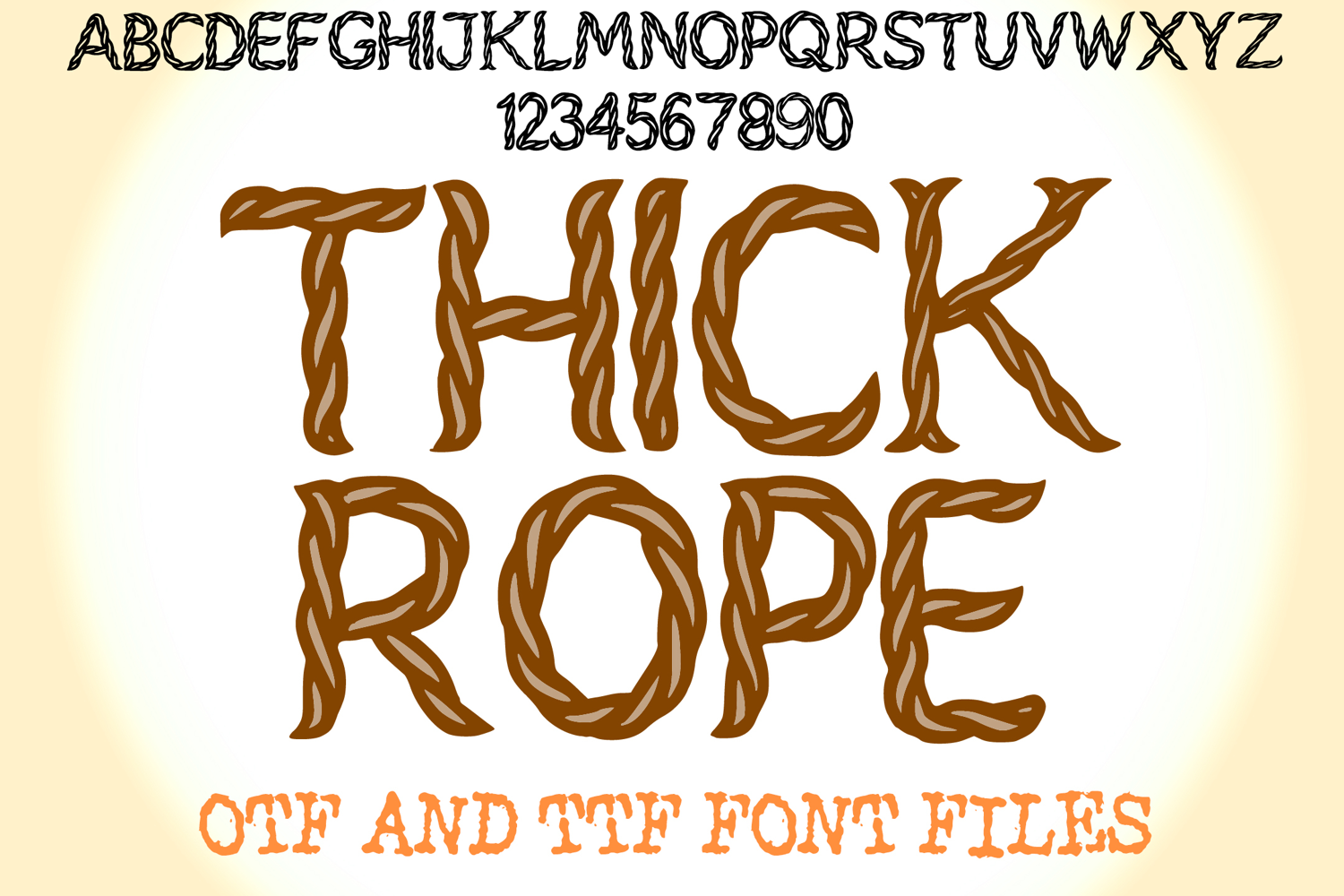
Thick Rope Lettering ABC Text Font Alphabet OTF Type Twisted Illustration
A coastal style font where you can create your own words and colour them to your vision!